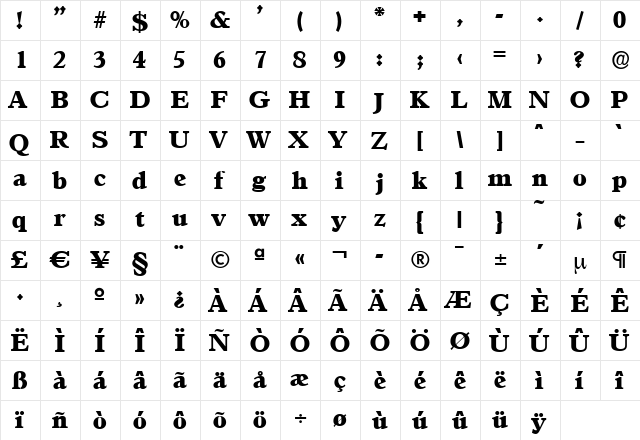
ColinBecker-Heavy Regular
Design Context for ColinBecker-Heavy Typeface
ColinBecker-Heavy offers clean, dependable letterforms without strong stylistic allegiance, making it a practical choice for designers who need flexibility.
Pro Tip: Use ColinBecker-Heavy in both headline and body roles to test its range before committing to a single application.